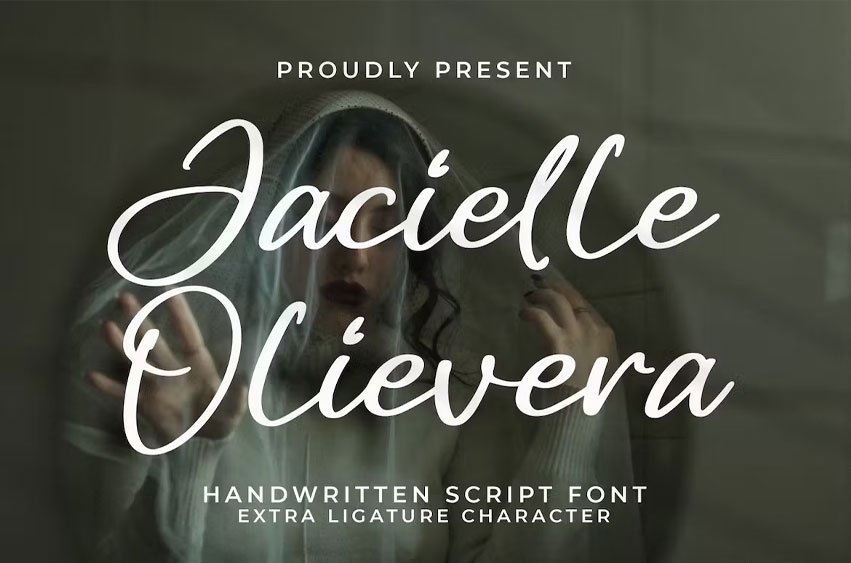
Jacielle Olievera Font Handwritten Script Font, from Integritype Studio, is a premium Script Font, perfect for any project that requires a distinctive, premium feel.
Ligature, Alternate & Multilingu
Jacielle Olievera Font Preview